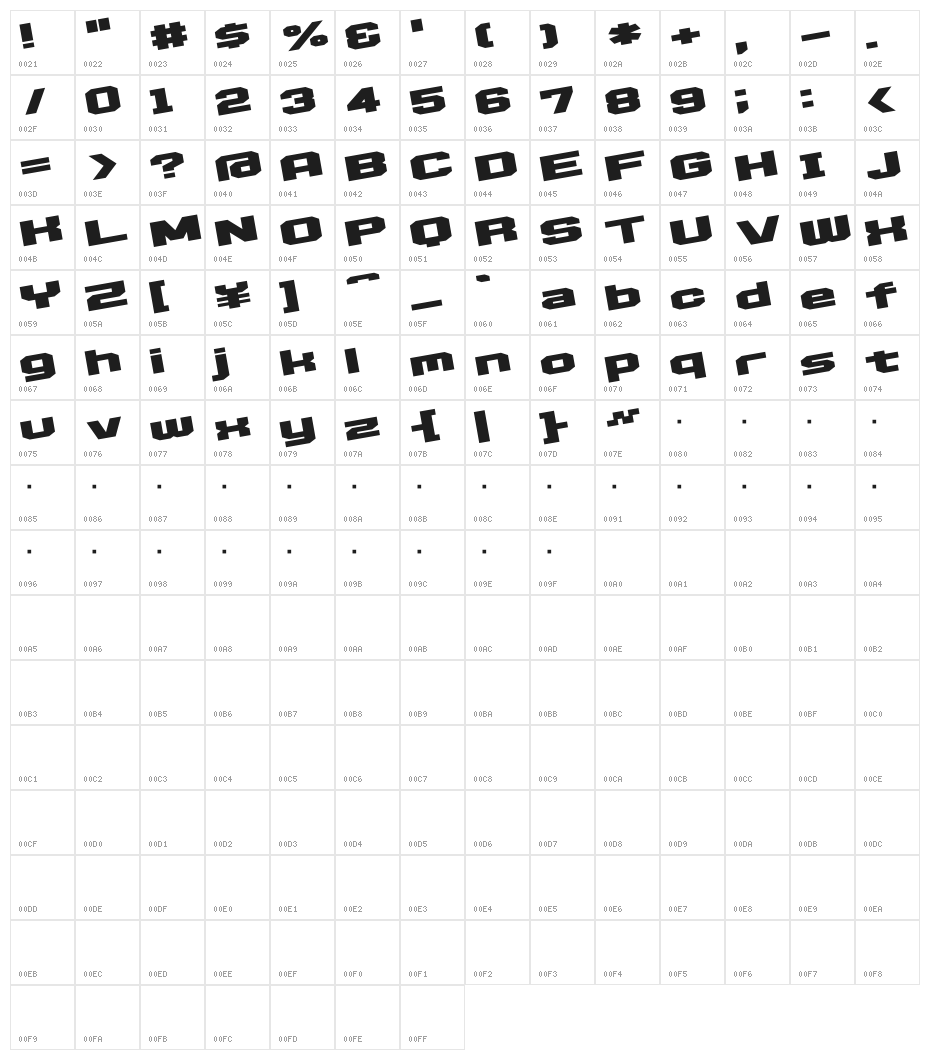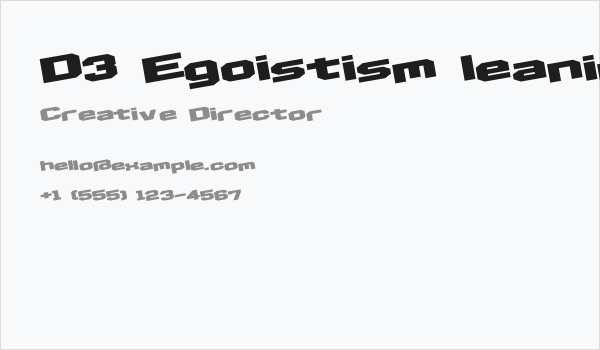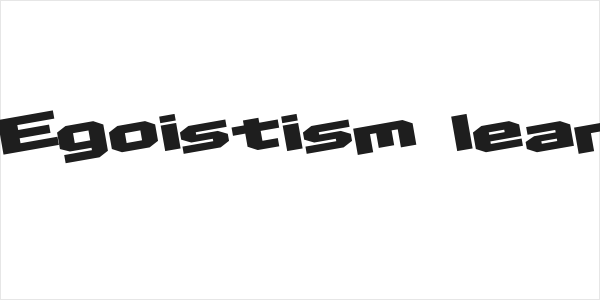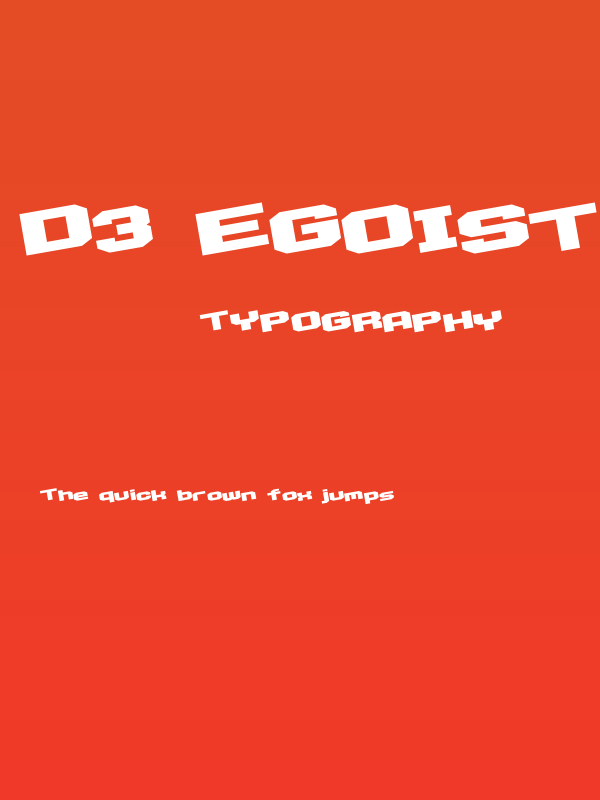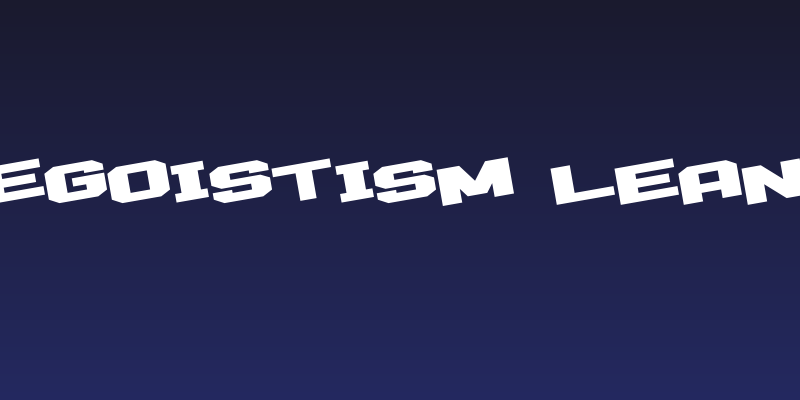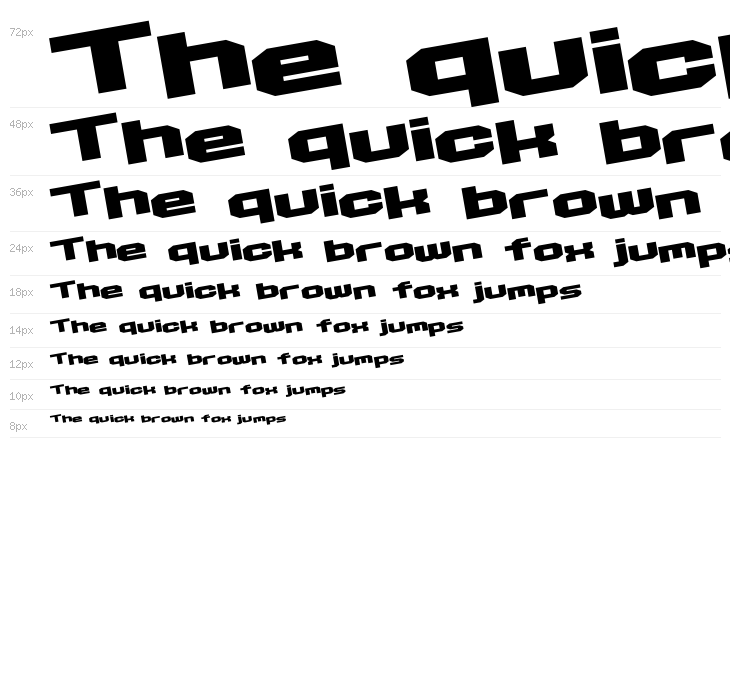
D3 Egoistism leaning Font
D3 Egoistism leaning Description
This font features a bold, angular design with a distinct slant, giving it a dynamic and edgy appearance. The characters are heavily stylized with sharp edges and a blocky structure, creating a sense of movement and energy. The uppercase and lowercase letters maintain a consistent style, with the lowercase slightly smaller but equally bold. Numbers and special characters follow the same design principles, ensuring uniformity across all glyphs. The font's unique style makes it stand out, suitable for projects that require a strong visual impact.
| Proposed Projects | Ideal for posters, logos, video game graphics, and any project needing a bold, impactful typeface. |